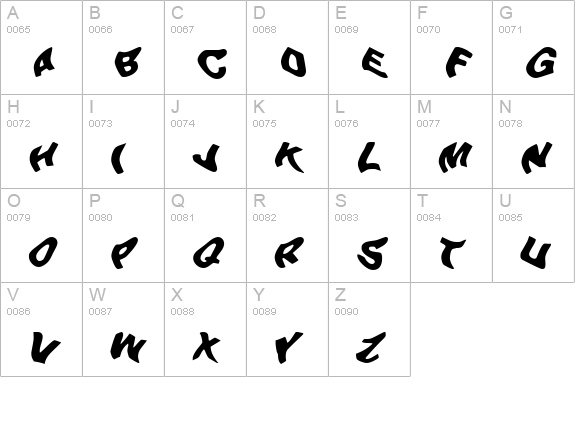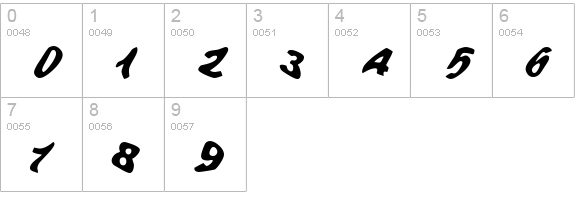
Beer Goggles Font Details
Beer Goggles font is a fun and quirky typeface that adds a playful touch to any project. With its bold and whimsical design, this font is perfect for creating eye-catching headlines, posters, and social media graphics. The unique character shapes and uneven lines give Beer Goggles font a handcrafted feel, making it stand out from the crowd. Best of all, Beer Goggles font is free to download at FontsMarket.com. Whether you're a designer looking to add some personality to your work or just a casual user in need of a creative touch, Beer Goggles font is a fantastic choice. Don't miss out on the opportunity to enhance your designs with this charming and distinctive font today!